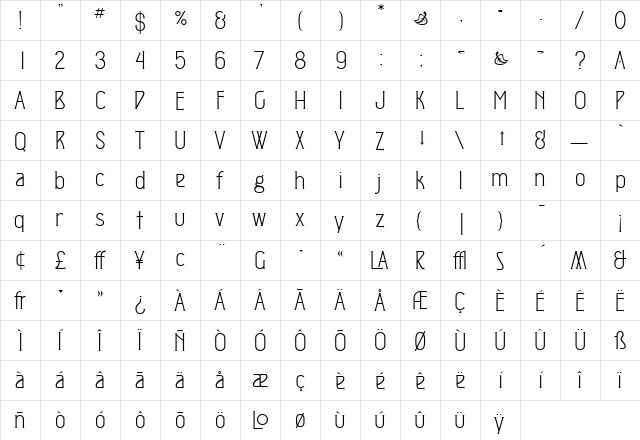
JM Exposition Plain Two Regular
Design Context for JM Exposition Plain Two Typeface
JM Exposition Plain Two offers clean, dependable letterforms without strong stylistic allegiance, making it a practical choice for designers who need flexibility.